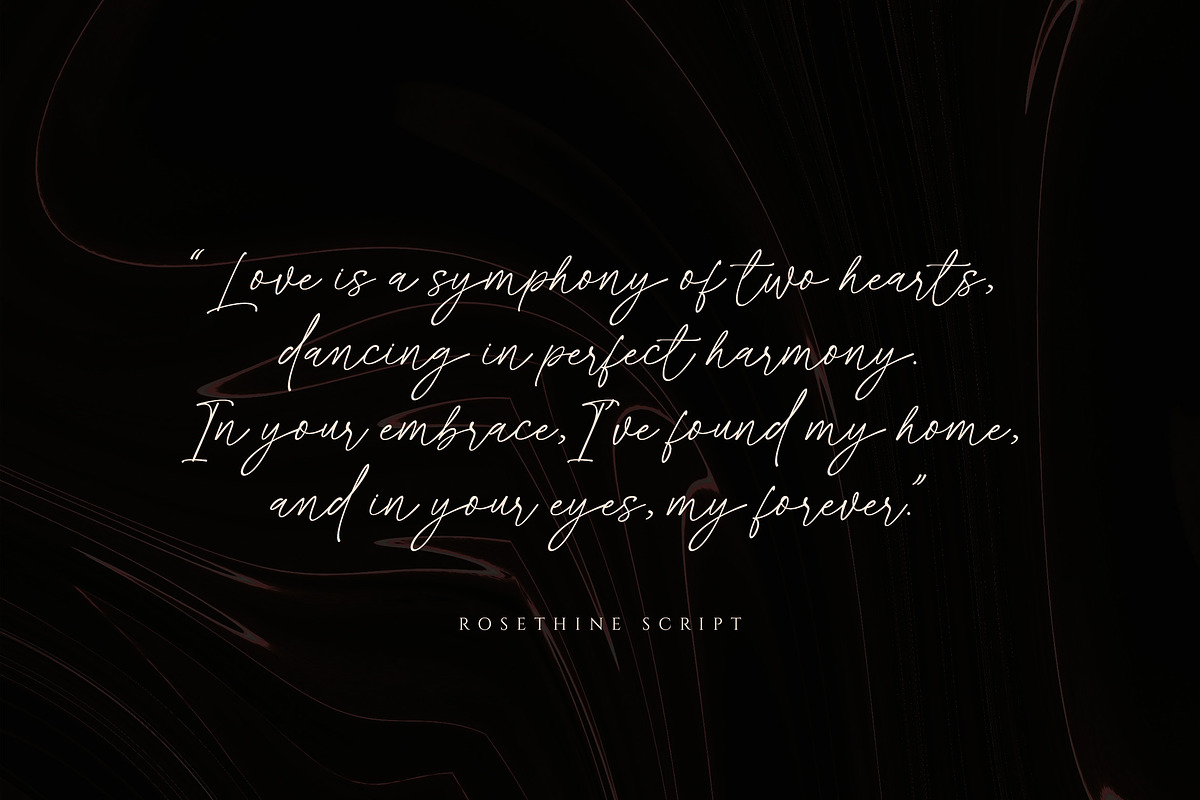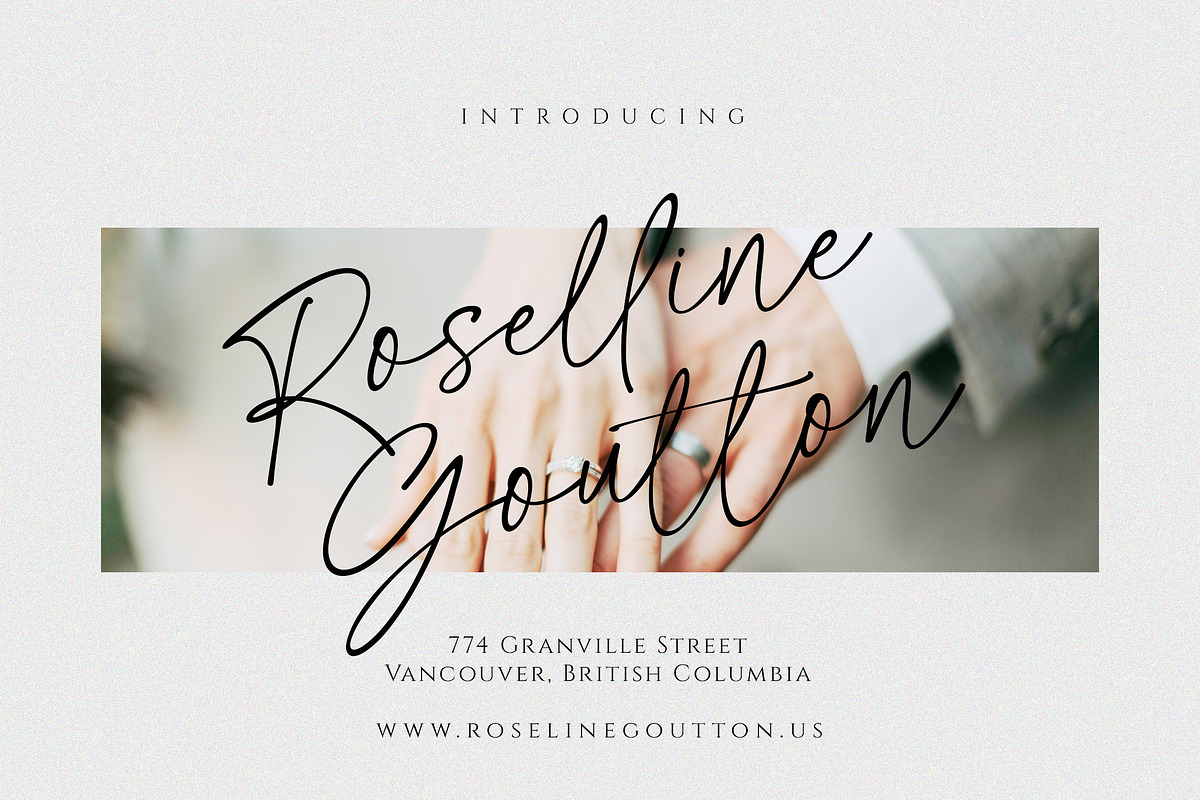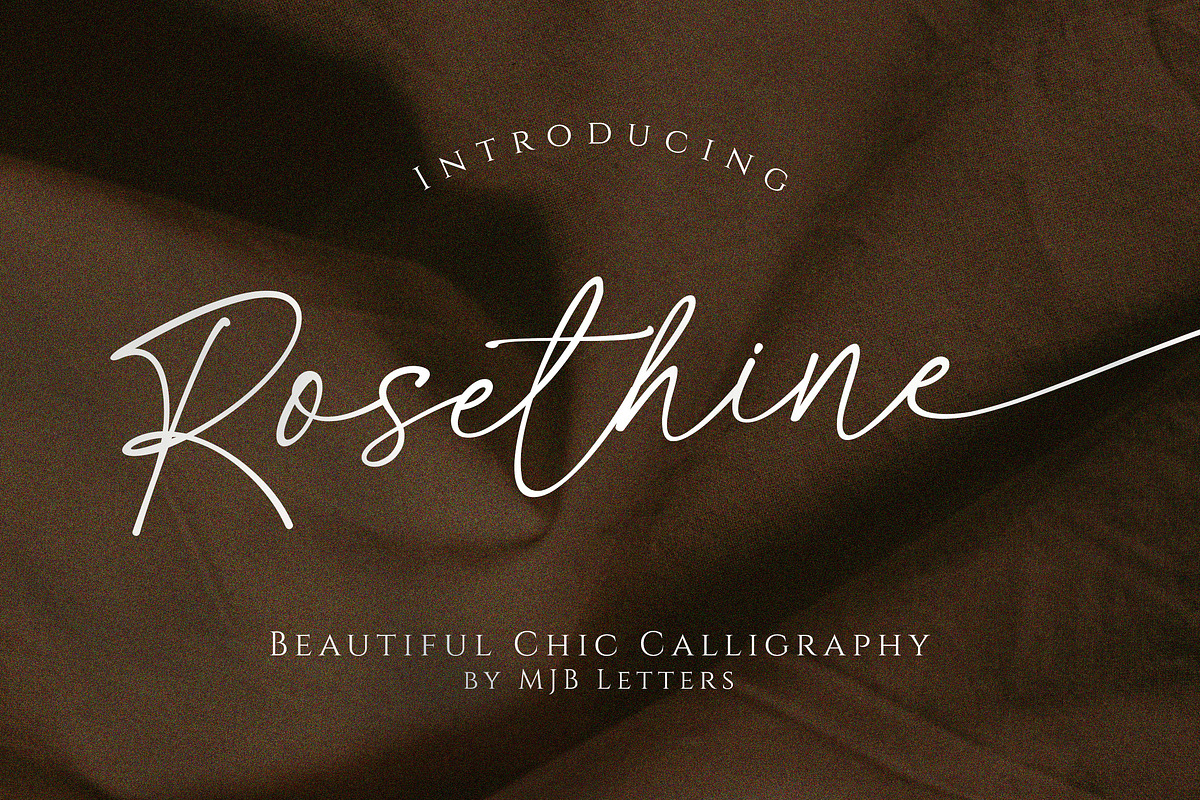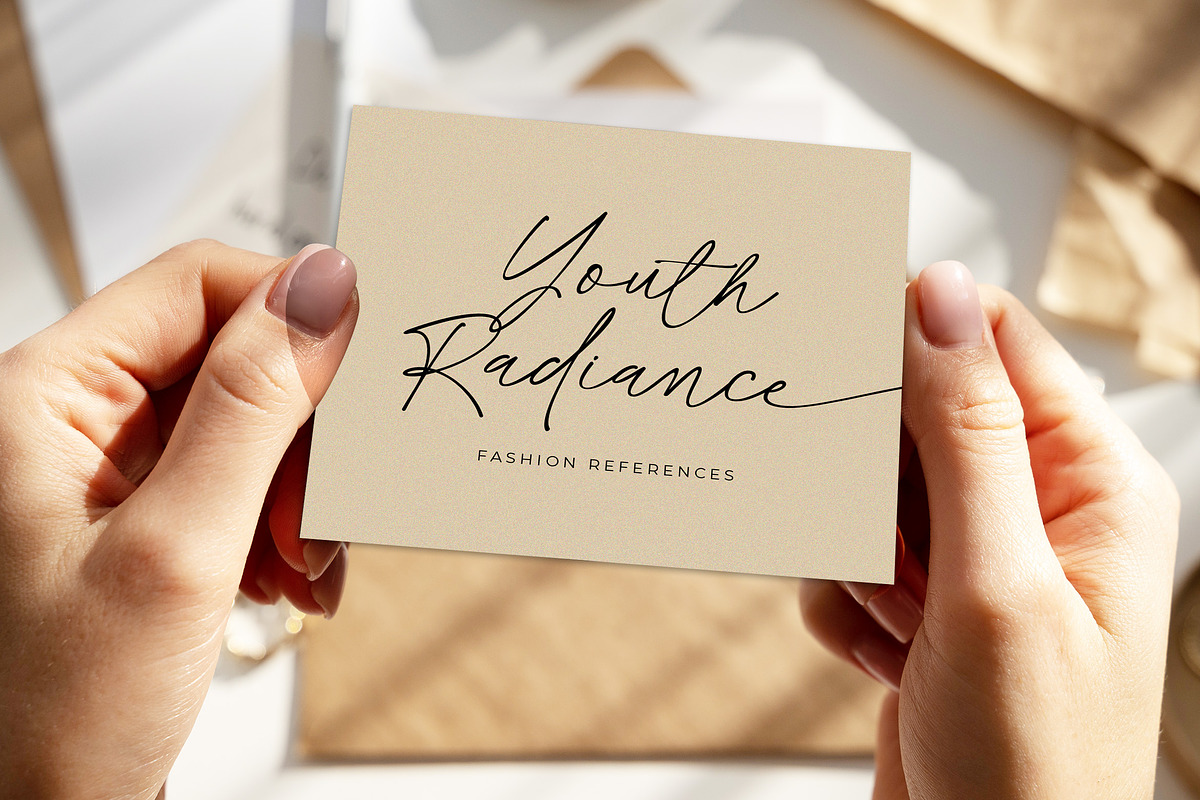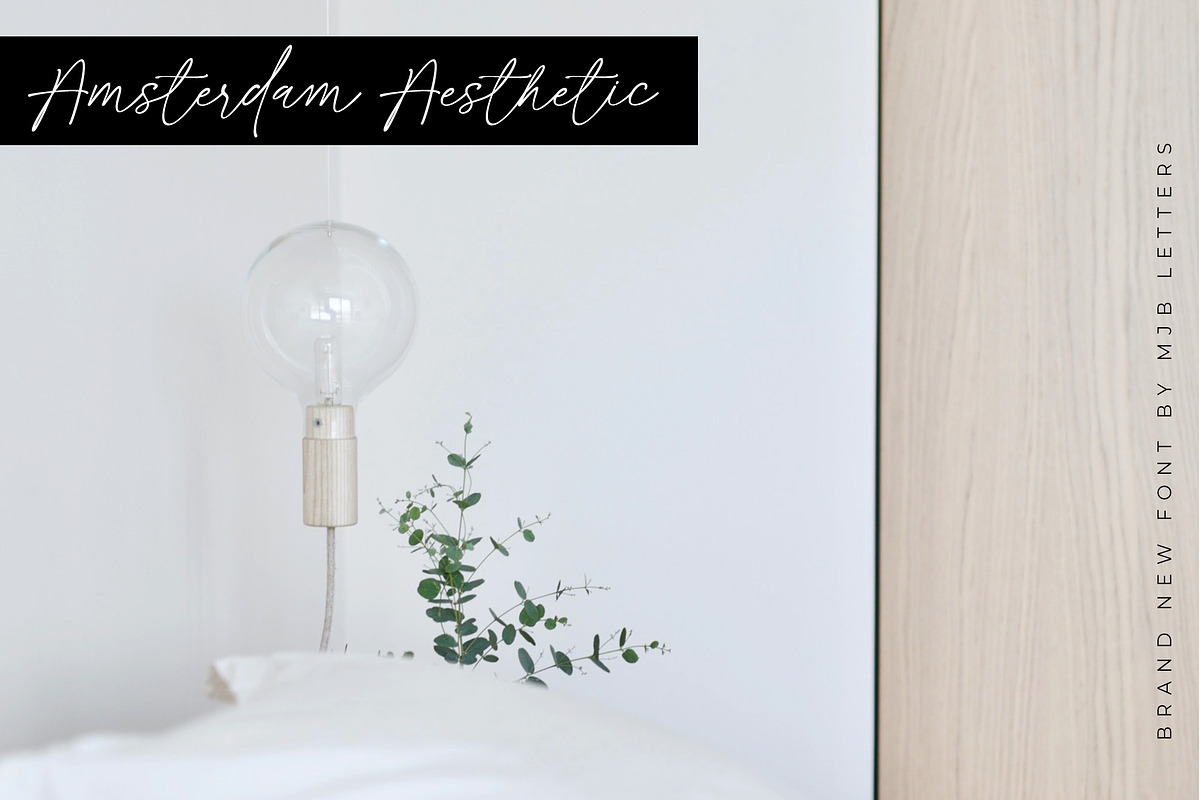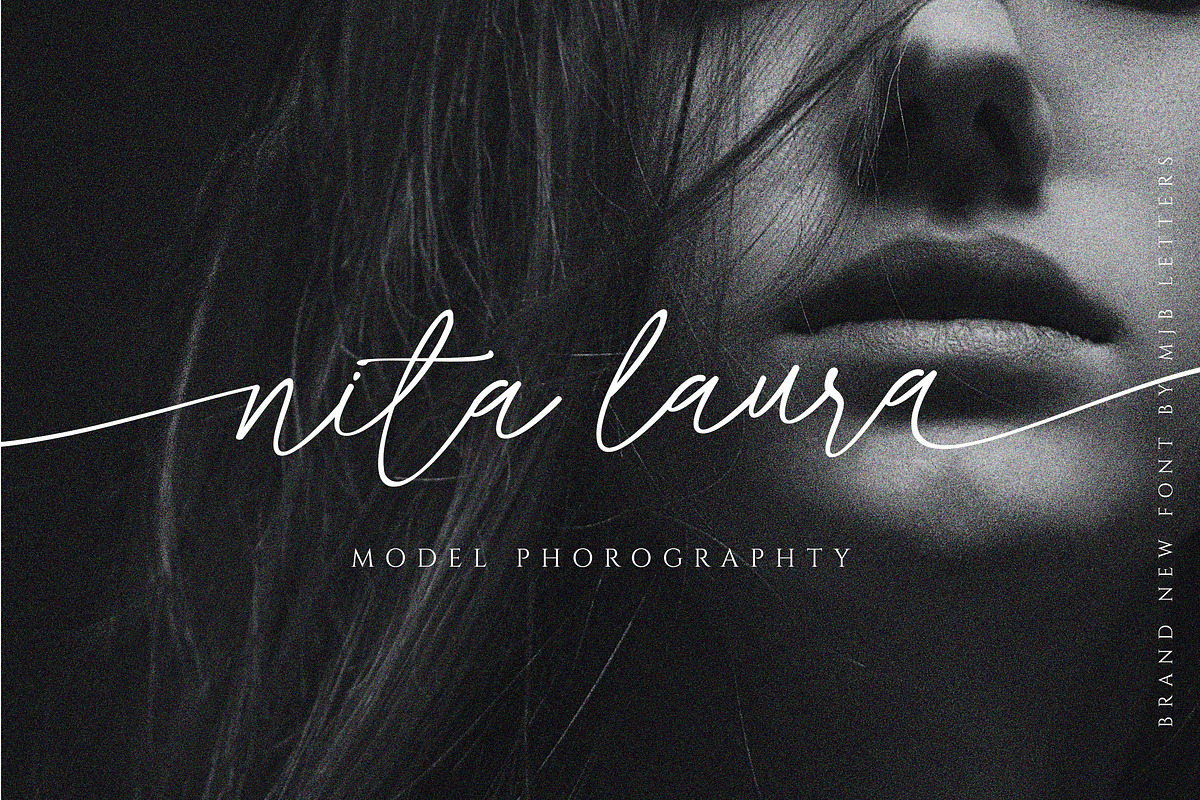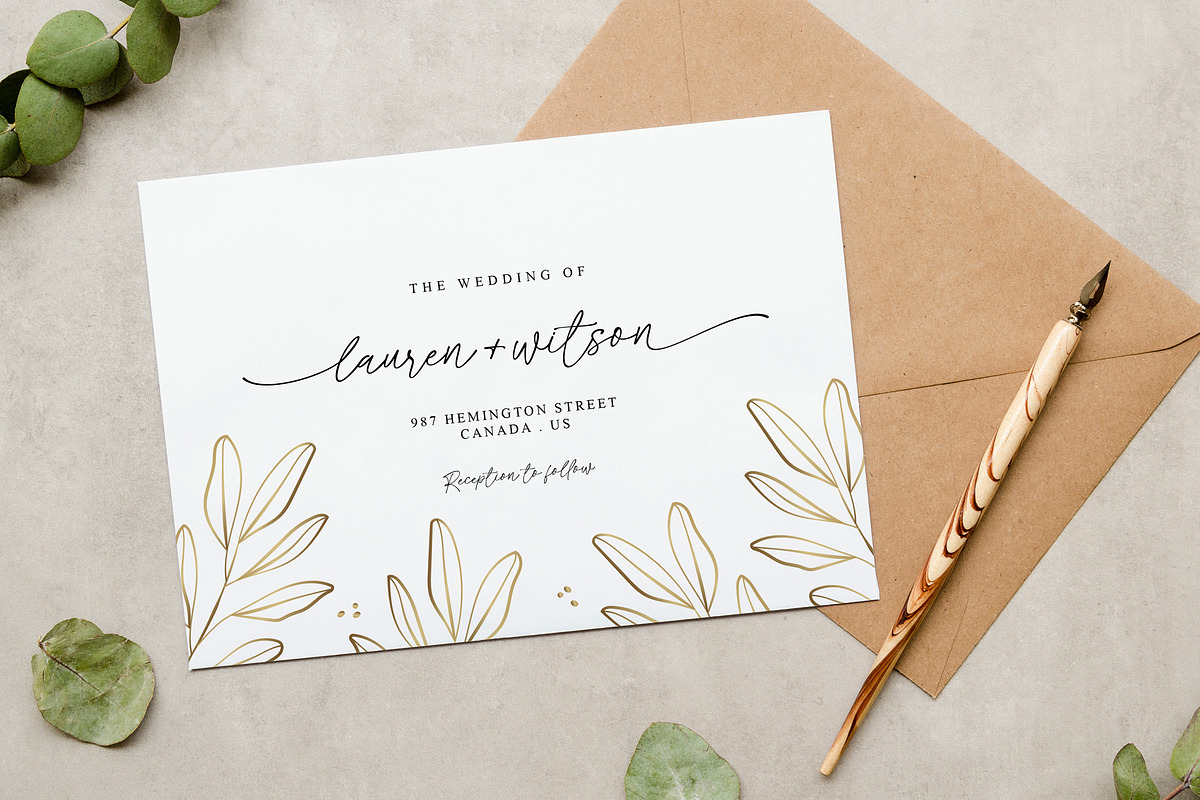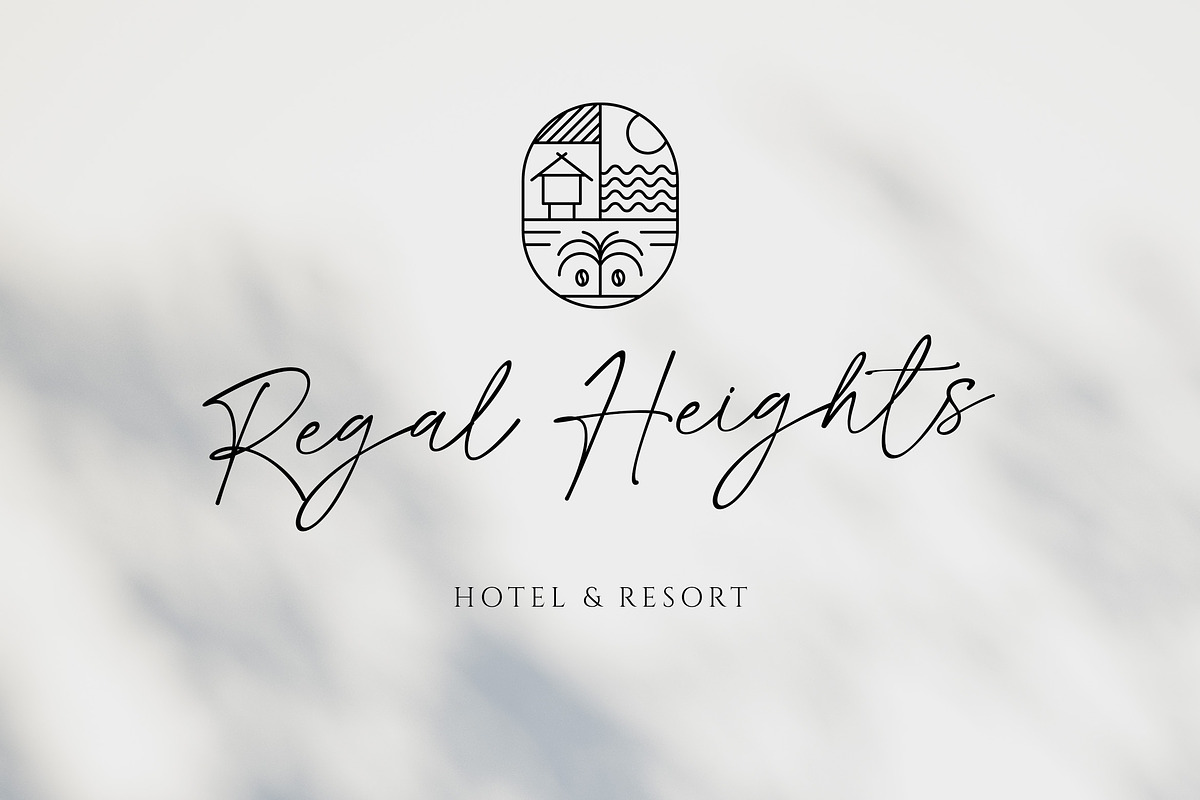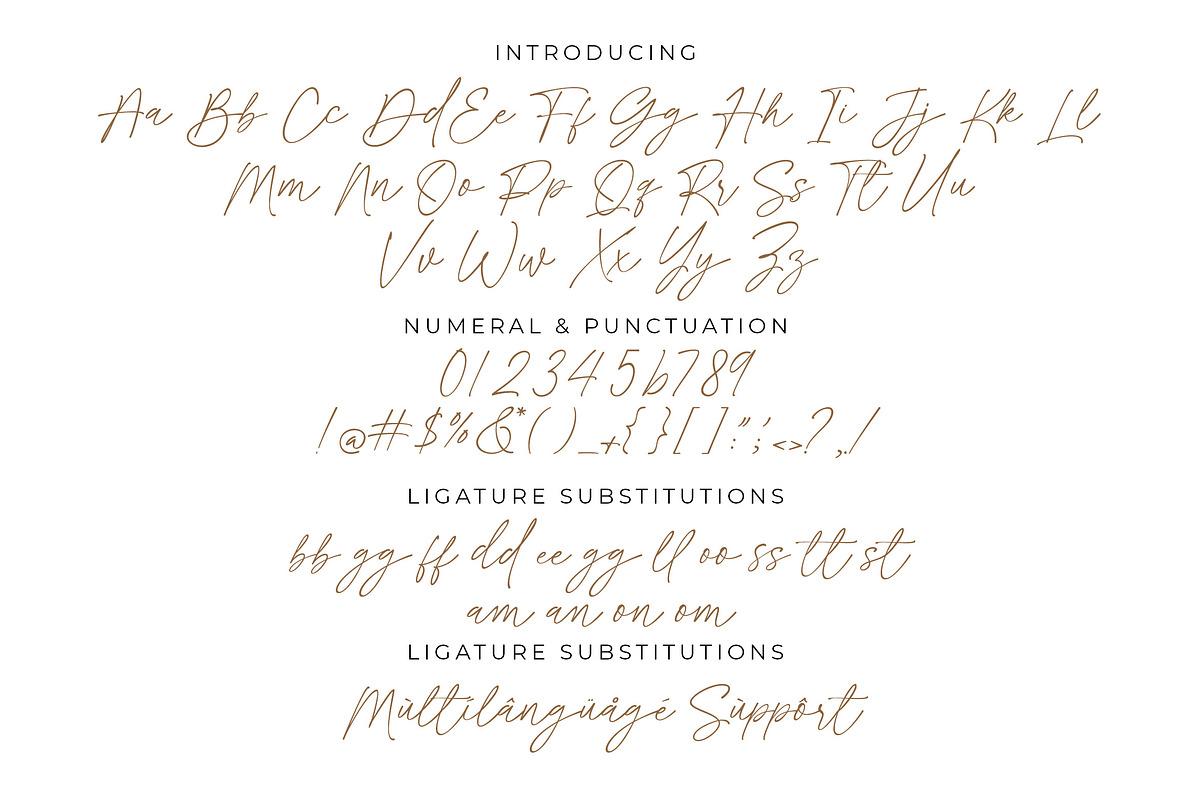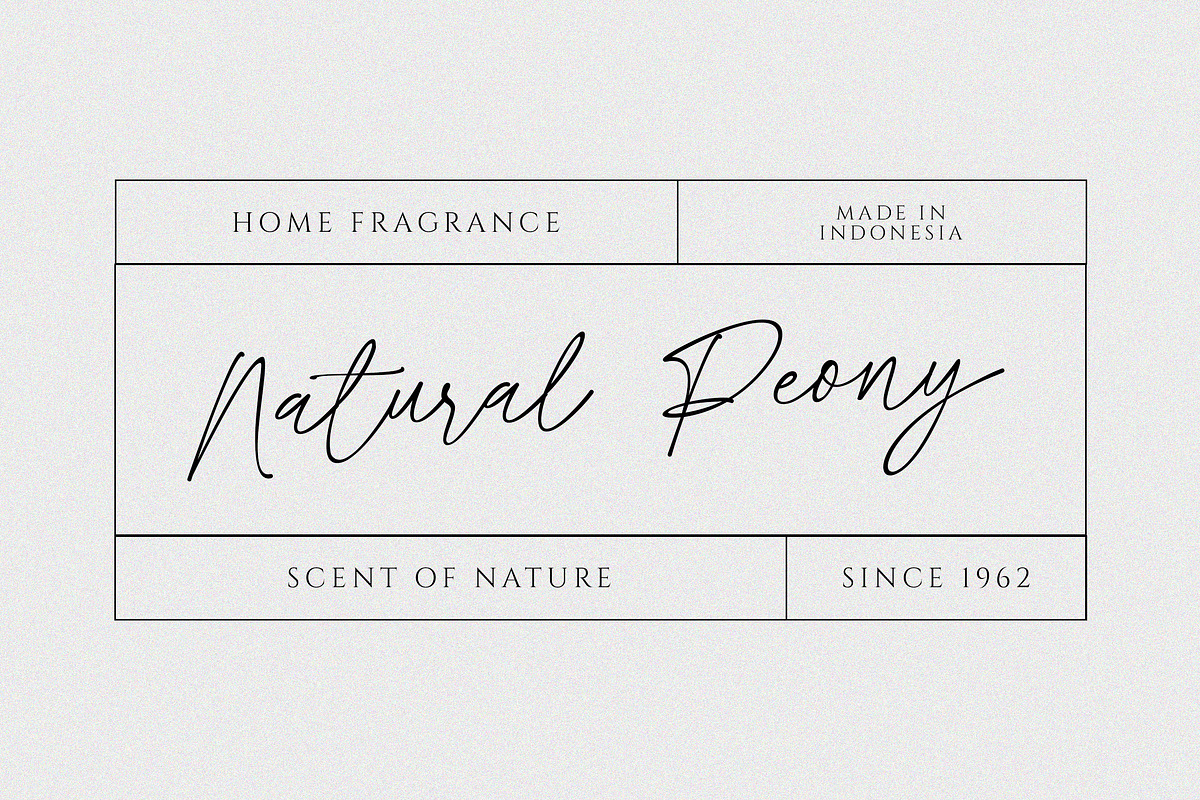
Rosethine | Chic Calligraphy
Rosethine is a modern chic calligraphy font that combines elegance and the beauty of handcrafted writing with a touch of contemporary sophistication. The font highlights the delicacy of ink strokes, creating a smooth and flowing appearance in each character. Categorized as modern chic calligraphy.
Rosethine is perfect for various design projects that require an artistic touch and a captivating look such as wedding invitations, greeting cards, logos, letterheads, brochures, posters, social media graphics, and other projects that demand a modern and elegant aesthetic. This font will add a luxurious and exclusive feel to every design you create.
Additionally, the font includes beautiful swashes on certain characters, adding decorative and graceful touches to your designs. With a complete set of punctuation marks and symbols, Rosethine ensures suitability for various types of content.
With its enticing features, elegant aesthetics, and multilanguage support, Rosethine becomes the perfect choice to elevate the quality and aesthetics of your designs, providing a unique artistic touch to every project.